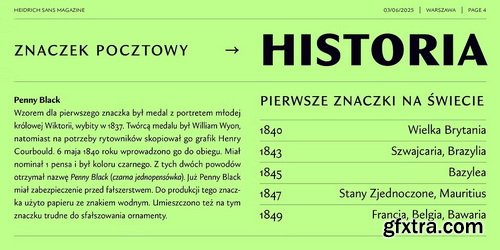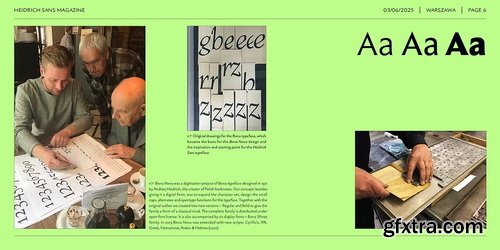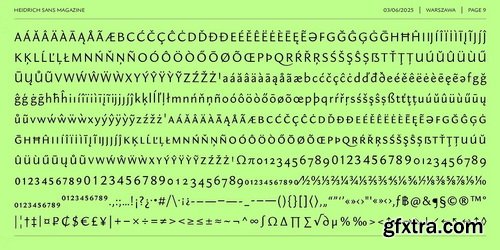
- In 2017, I worked on the Bona Nova research project to digitize and expand the Bona typeface designed by Andrzej Heidrich in 1971. The project was developed with further scripts and, in the meantime, together with Leszek Bielski and Andrzej Heidrich while working on a identity for the Polish Senate, we created several characters for a logotype based on Bona Nova in a sans serif version. After the death of Andrzej Heidrich and Leszek Bielski, I completely lost heart for developing the whole project. However, the idea of developing a Sans version inspired, on the one hand, by sketches for Bona and, on the other, by the works of Andrzej Heidrich, which Leszek Bielski and I collected during our research. Finally, after several years of work, Heidrich Sans was created – an elegant sans-serif typeface which explores the typographic heritage left by one of the most eminent contemporary graphic designers.